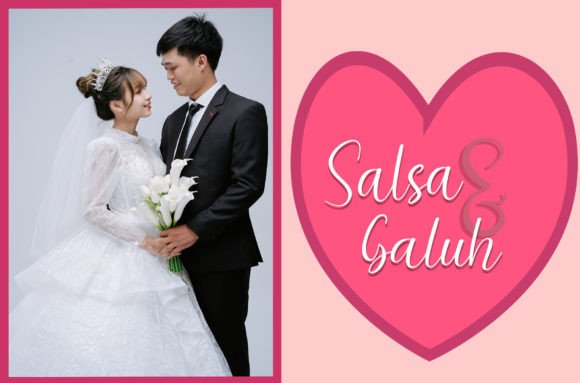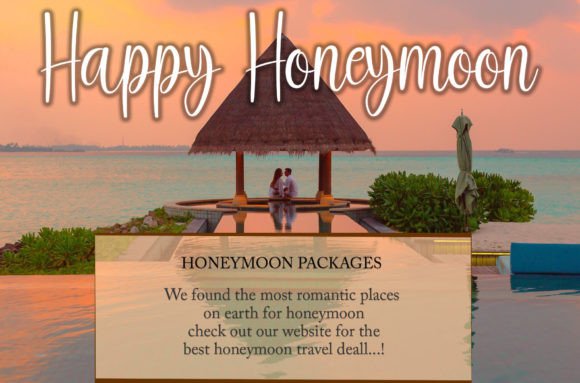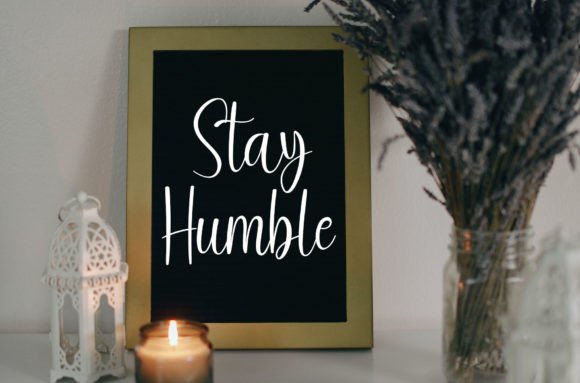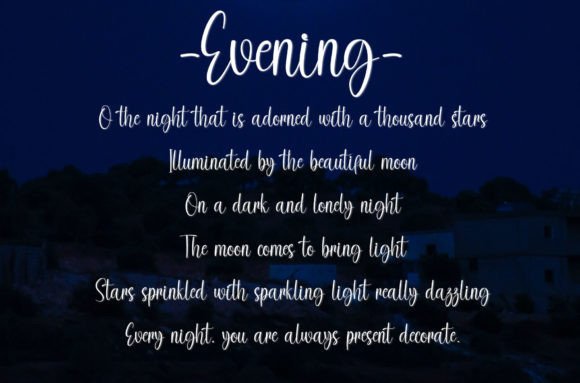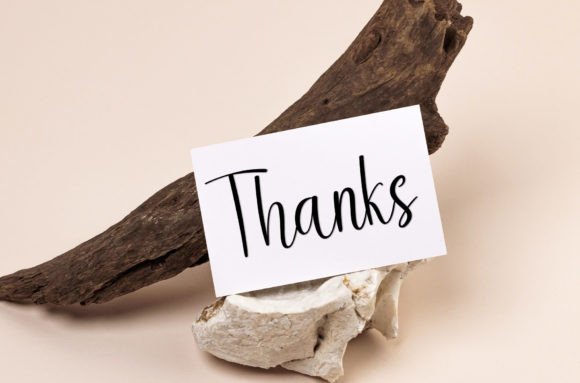
Easter Font: Add a Sweet and Adorable Touch to Your Designs
Easter is a delightful time of the year, filled with vibrant colors, playful patterns, and a sense of renewal. For designers and crafters, it’s the perfect opportunity to infuse their creations with a fresh and festive spirit. One of the most effective ways to achieve this is by using a font that captures the essence of Easter. Introducing Easter Font, a sweet and adorable handwritten font that’s sure to add a neat and natural feel to your next project.
What is Easter Font?
Easter Font is a versatile handwritten font designed to bring a touch of whimsy and charm to your designs. With its delicate and cursive strokes, this font is perfect for creating eye-catching headlines, greeting cards, and other visual materials that require a personal touch. Whether you’re working on a DIY project, a marketing campaign, or simply want to add a decorative element to your digital content, Easter Font is an excellent choice.
Key Features of Easter Font
- Handwritten style: Easter Font boasts a beautiful, handwritten style that’s reminiscent of traditional Easter cards and decorations.
- Versatile: This font can be used for a wide range of applications, from greeting cards and invitations to headlines and social media graphics.
- Sweet and adorable: Easter Font is designed to evoke a sense of sweetness and adorability, making it perfect for Easter-themed designs and beyond.
- Neat and natural feel: The font’s delicate strokes and cursive style give it a neat and natural feel that’s sure to enhance your designs.
Use Cases for Easter Font
Easter Font is an incredibly versatile font that can be used in a variety of contexts. Here are some ideas to get you started:
- Easter greeting cards: Create beautiful and personalized Easter greeting cards for friends and family.
- Social media graphics: Add a touch of Easter charm to your social media graphics, including Facebook posts, Instagram stories, and Twitter headers.
- DIY projects: Use Easter Font to add a decorative touch to your DIY projects, such as handmade Easter baskets, decorations, and crafts.
- Marketing campaigns: Incorporate Easter Font into your marketing campaigns to create eye-catching headlines and promotional materials.
- Wedding and event invitations: Add a touch of whimsy and romance to your wedding and event invitations with Easter Font.
Tips for Using Easter Font
To get the most out of Easter Font, here are some tips to keep in mind:
- Pair with complementary fonts: Combine Easter Font with complementary fonts to create visual interest and hierarchy.
- Experiment with colors: Easter Font looks great in a variety of colors, so don’t be afraid to experiment and find the perfect hue for your design.
- Use for headlines and titles: Easter Font is perfect for headlines and titles, where its playful and cursive style can shine.
- Add embellishments: Consider adding embellishments, such as Easter-themed graphics or illustrations, to enhance your design.